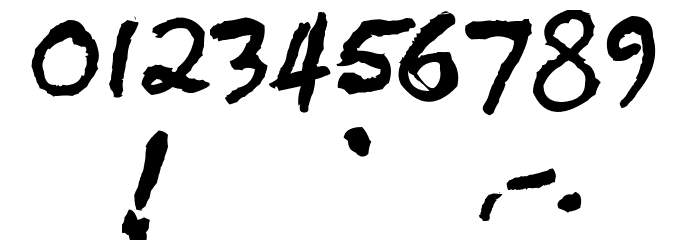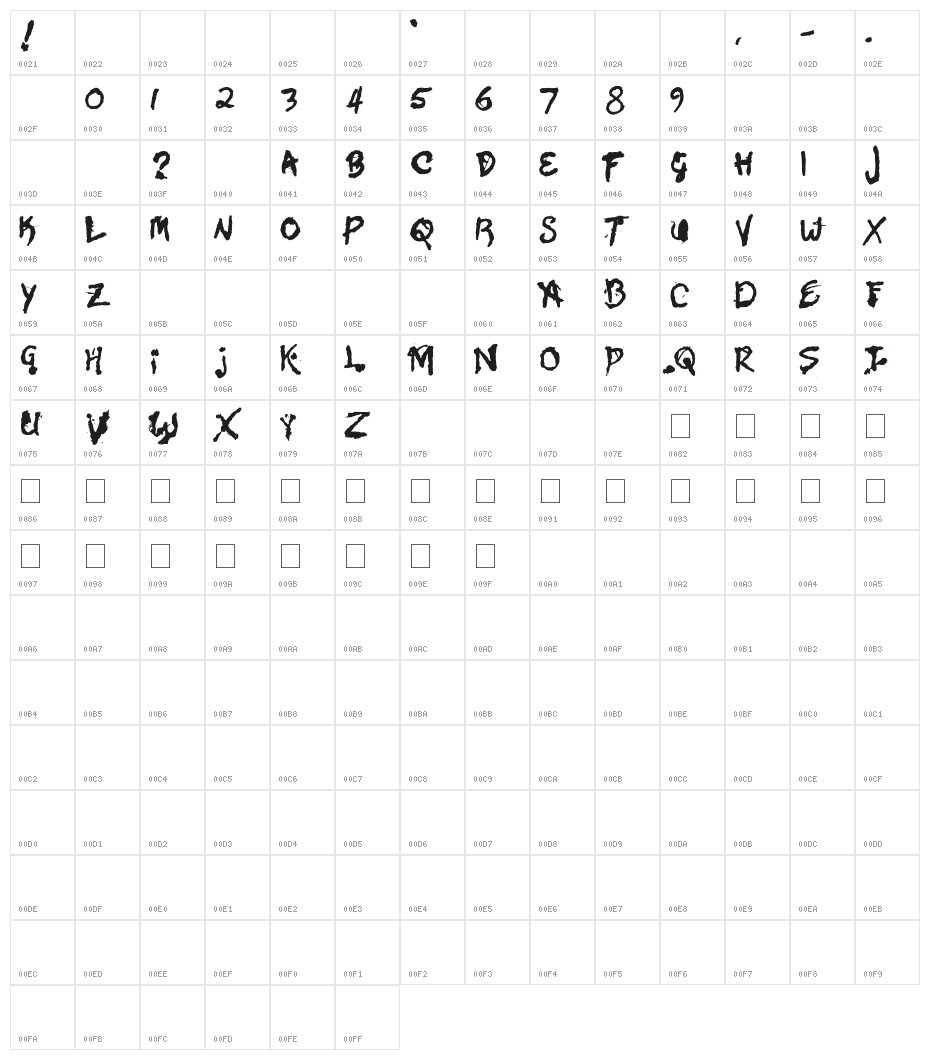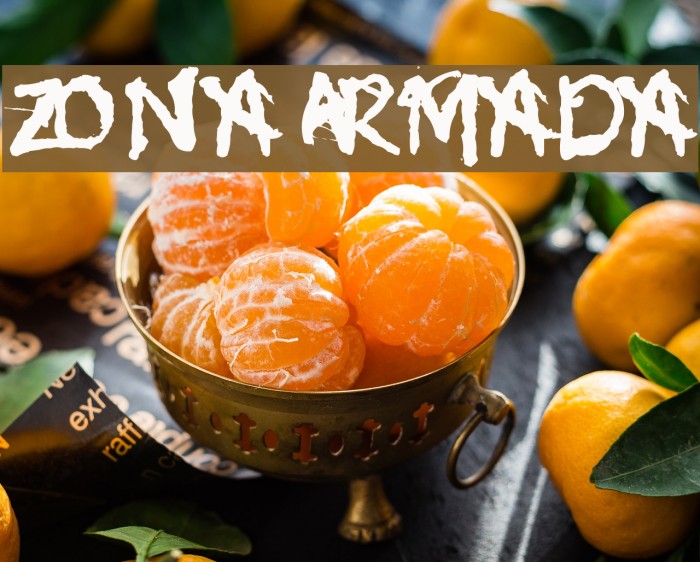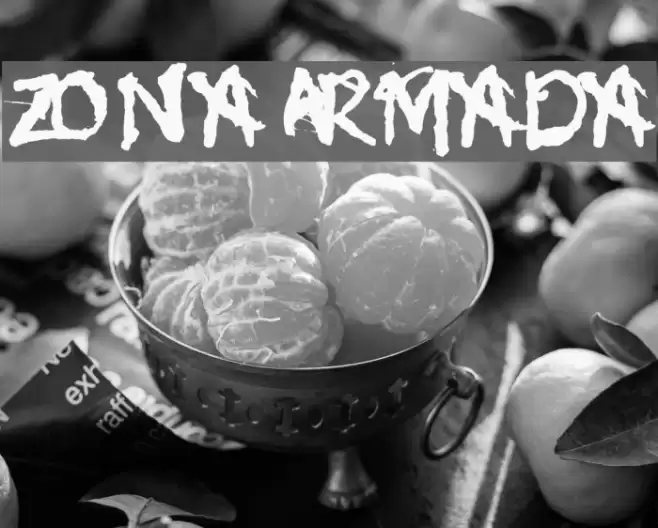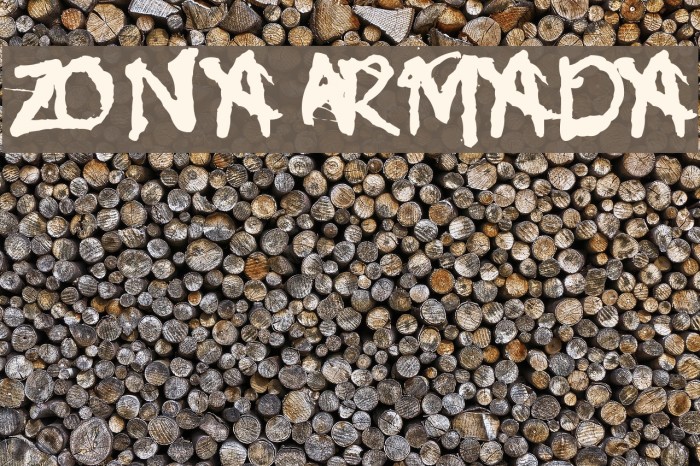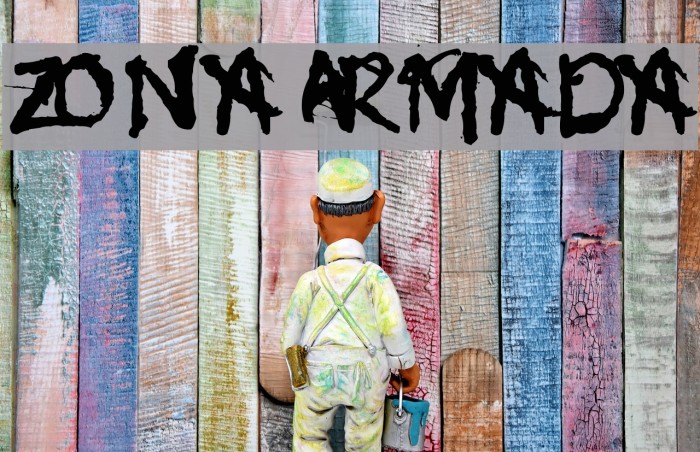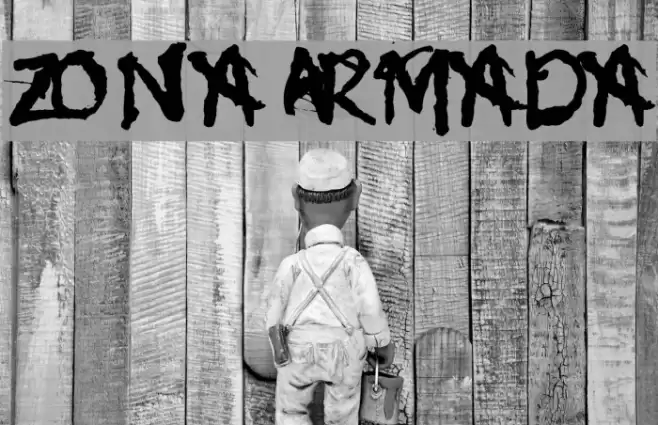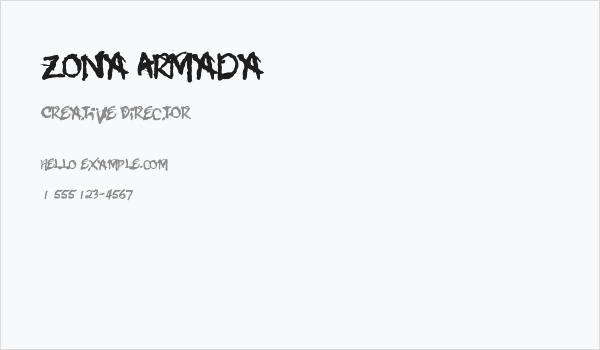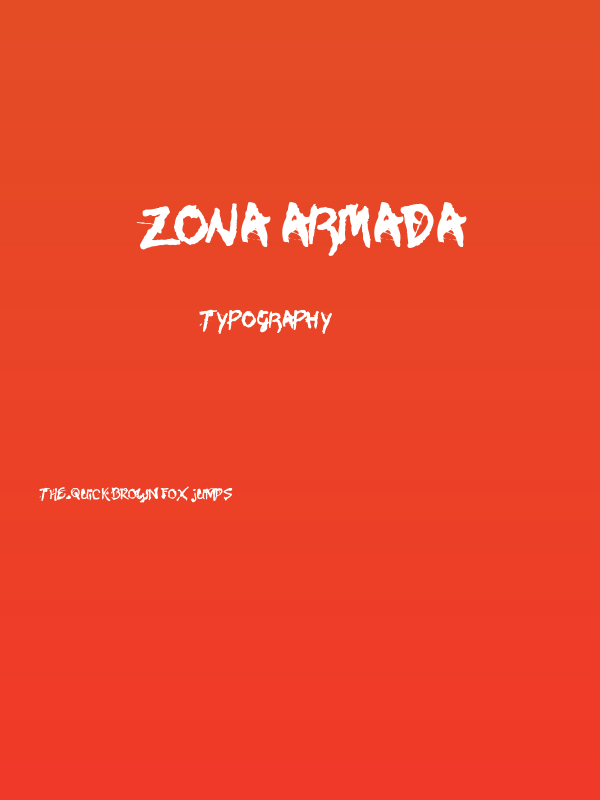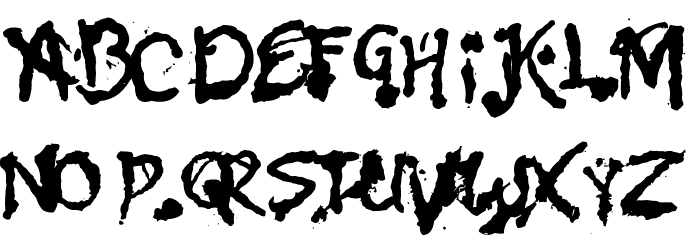
Zona Armada Font
Zona Armada Description
This font features a bold and expressive style, reminiscent of graffiti or hand-painted lettering. The characters are irregular and dynamic, with thick strokes and a rough texture that gives them a raw, energetic feel. The uppercase and lowercase letters maintain a consistent aesthetic, with each character displaying unique variations that add to the font's overall character. Numbers and special characters follow the same stylistic approach, ensuring a cohesive look across all elements. The font's rugged appearance makes it suitable for projects that require a strong visual impact.
| Overall Style | Modern, Urban, Edgy |
| Proposed Projects | Ideal for street art-inspired designs, music album covers, posters, and branding that seeks a bold, edgy look. |